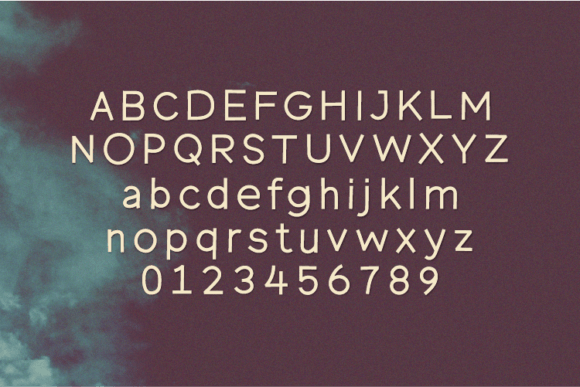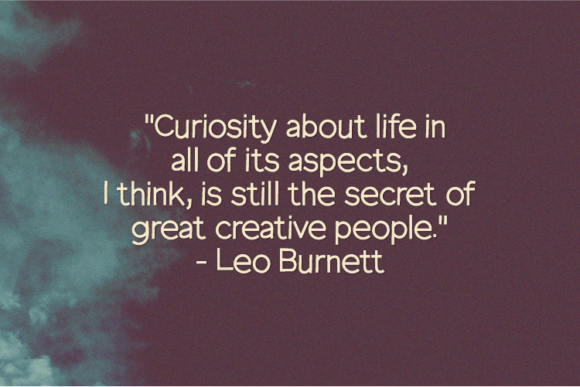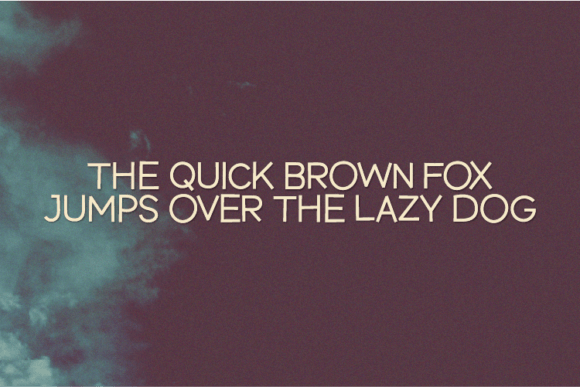
Courageous Font: Elevate Your Designs with a Beautiful Sans Serif Font
Are you tired of using the same old fonts in your designs? Look no further than the Courageous Font, a stunning sans serif font that is sure to make your creations stand out. With its clean lines, modern aesthetic, and versatility, Courageous is the perfect addition to any designer’s collection.
What Makes Courageous Font So Special?
Courageous Font is a beautiful sans serif font that boasts a unique and elegant design. Its clean lines and simple shapes make it easy to read and versatile enough to use in a variety of projects. Whether you’re designing a logo, creating a quote graphic, or crafting a greeting card, Courageous Font is the perfect choice.
The possibilities are endless when it comes to using Courageous Font in your designs. Here are just a few ideas to get you started:
- Logos: Use Courageous Font to create a modern and sleek logo that will help your brand stand out.
- Quotes: Add Courageous Font to your quote graphics for a bold and eye-catching look.
- T-Shirts: Create custom t-shirts with Courageous Font for a unique and stylish design.
- Greeting Cards: Use Courageous Font to add a personal touch to your greeting cards and make them extra special.
- Business Cards: Elevate your business cards with Courageous Font and make a lasting impression.
Why Choose Courageous Font?
So, why should you choose Courageous Font for your designs? Here are just a few reasons:
- Unique Design: Courageous Font boasts a unique and elegant design that will set your creations apart from the rest.
- Versatility: Courageous Font is versatile enough to use in a variety of projects, from logos and quotes to t-shirts and greeting cards.
- Easy to Read: Courageous Font is easy to read, making it perfect for designs that require a clear and concise message.
- Modern Aesthetic: Courageous Font has a modern aesthetic that will give your designs a fresh and contemporary look.
Tips for Using Courageous Font
Here are a few tips for using Courageous Font in your designs:
- Experiment with Different Sizes: Courageous Font looks great in a variety of sizes, so don’t be afraid to experiment and find the perfect size for your design.
- Pair with Other Fonts: Courageous Font pairs well with other fonts, so try combining it with a serif font for a unique and interesting look.
- Use in Combination with Images: Courageous Font looks great in combination with images, so try using it to add text to your photos or illustrations.
In conclusion, Courageous Font is a beautiful sans serif font that is sure to elevate your designs. With its unique design, versatility, and modern aesthetic, Courageous Font is the perfect addition to any designer’s collection. Whether you’re a professional designer or a crafty DIY enthusiast, Courageous Font is a must-have font that will help you create stunning designs that stand out from the crowd.
Courageous Font is a beautiful sans serif font that will make a wonderful asset to your collection. Add it to your logos, quotes, T-shirts, greeting cards, business cards, and many more, and make them outstanding!